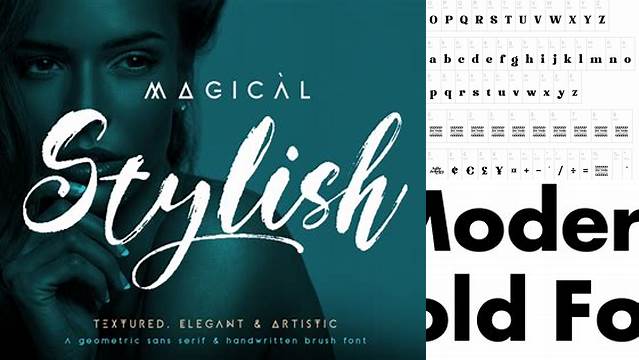
DaFont Modern Fonts: Your Guide To Stylish Typography
Hey guys! Ever wanted to give your designs a fresh, modern look? Well, you're in luck! Today, we're diving headfirst into the awesome world of DaFont modern fonts. This online goldmine is packed with typography treasures that can transform your projects from blah to breathtaking. So, buckle up, because we're about to explore some killer fonts, learn how to snag them, and discover how to use them like a pro. Get ready to take your design game to the next level! We'll look at all the cool stuff, from sleek sans-serifs to the boldest display fonts. Plus, we'll give you some top-notch tips on pairing fonts, ensuring your creations not only look great but also communicate your message effectively. Whether you're a seasoned designer or just starting out, this guide has something for everyone. Let's get started, shall we?
What Exactly Are Modern Fonts?
Okay, first things first, what exactly are modern fonts? Basically, they are fonts that represent the design aesthetic of the moment. They usually have clean lines, simple structures, and a minimalist vibe. Think about those sleek, contemporary designs you see everywhere, from websites and apps to posters and branding materials. Modern fonts are the secret sauce that helps achieve this clean look. Unlike older fonts, modern fonts often embrace a sense of simplicity and functionality. They’re designed to be easy to read, versatile, and adaptable to various applications. This means they work great in digital environments (like websites and mobile apps) and print media (like brochures and magazines). They're perfect for conveying a sense of sophistication, professionalism, and forward-thinking. This makes them especially popular for branding, as they can instantly give a company a contemporary edge.
These fonts are not just about aesthetics; they also have practical considerations. Designers focus on readability, ensuring that text remains clear and legible across different sizes and platforms. This attention to detail is what makes modern fonts so effective. Another characteristic is their wide range of styles. From elegant serifs to bold sans-serifs, there is a modern font for every design need. This versatility allows designers to tailor their typography to match the specific tone and message of their project. The variety means you can choose a font that not only looks great but also supports the meaning behind your design. This combination of visual appeal and functional design makes modern fonts a top choice for anyone looking to create compelling visual content.
Modern fonts often reflect the latest trends in design. They are constantly evolving, with new fonts being created that capture the changing tastes of the design community. This keeps the design world fresh and exciting. This constant evolution ensures that designers always have access to the newest and most stylish options. Another important element is their adaptability. Modern fonts are designed to work seamlessly across various platforms and devices. This is essential in today’s digital world, where content is consumed on everything from smartphones to large desktop screens. Modern fonts are typically designed to be highly versatile, making them suitable for a wide array of design projects. They’re perfect for conveying a sense of sophistication, professionalism, and forward-thinking. This makes them especially popular for branding, as they can instantly give a company a contemporary edge.
Key Characteristics of Modern Fonts
Modern fonts share several core characteristics. The clean lines are a defining feature of modern fonts. These lines are often minimalist, avoiding excessive ornamentation and intricate details. This clarity makes the text easy to read, even at smaller sizes. Simplicity is a huge element in these fonts. Modern fonts often embrace simple shapes, reducing complex elements. This simplicity contributes to their sleek appearance and ensures that the text remains uncluttered. The legibility is another characteristic to focus on. Readability is paramount. Modern fonts are designed to be easily readable. This ensures the message is delivered in an effective way. Geometric forms are also a common element. Many modern fonts draw inspiration from geometric shapes. This adds a sense of precision and visual interest. The versatility is another key characteristic of modern fonts. Modern fonts are often designed to be versatile. They can be used in a variety of applications, from branding to web design. Finally, the timelessness is a key element. Modern fonts are often designed to be timeless, avoiding design trends. This means they remain relevant and effective. By understanding these key characteristics, you can easily spot modern fonts and use them effectively in your own designs.
Diving into DaFont: Your Font Paradise
DaFont also has a rating system. This system helps you find the fonts that are popular. This can be helpful if you're unsure which font to choose. Always pay attention to the license before downloading any fonts. Some fonts are free for personal use only, while others offer commercial licenses. You can also find fonts from independent designers on DaFont. These are fonts created by talented designers. Another useful feature of DaFont is its update frequency. The site is always being updated. Overall, DaFont is a fantastic resource for designers. It is a user-friendly platform with a huge library of fonts. Whether you are a professional designer or just starting out, DaFont is a great resource.
Conclusion: Embrace the Modern Typography Revolution
So, there you have it, guys! A comprehensive guide to the awesome world of DaFont modern fonts. We hope this helps you explore the endless possibilities of modern typography and make your designs pop! By now, you should have a solid understanding of what modern fonts are, how to find and download them on DaFont, and how to pair them effectively. Modern fonts can help you add a touch of sophistication to any design project. Now go out there and start creating some stunning designs. Don't be afraid to experiment, try new things, and most importantly, have fun with it. Get creative and see how you can transform your designs. Remember, the best way to master typography is by practicing and experimenting with different fonts and styles. Happy designing! We hope you are excited about the use of modern fonts to improve your designs.